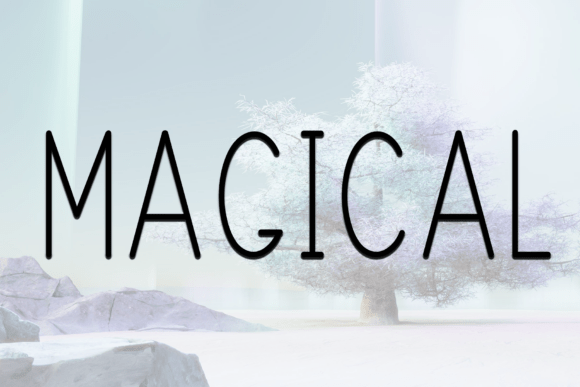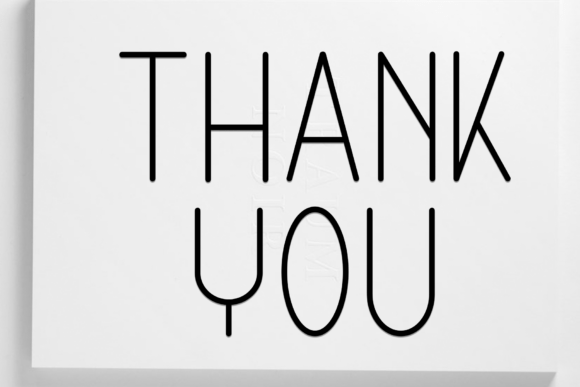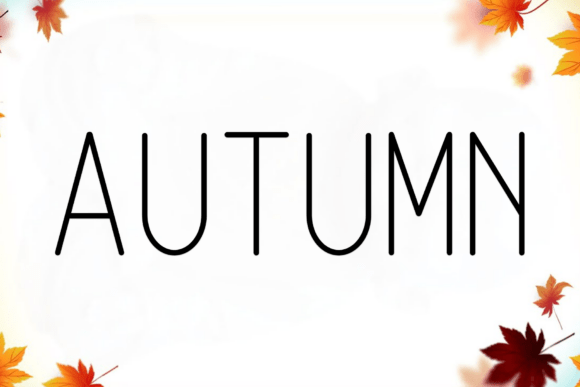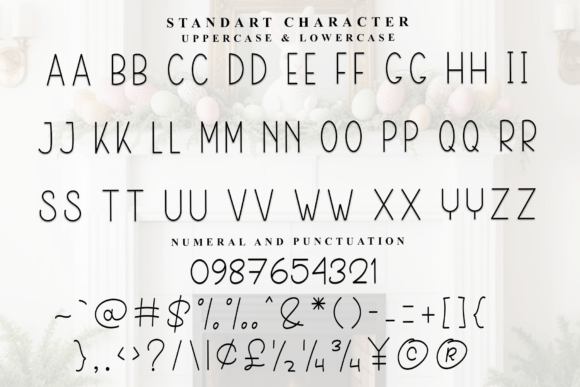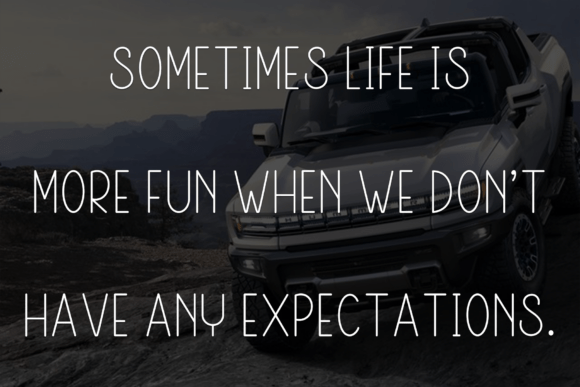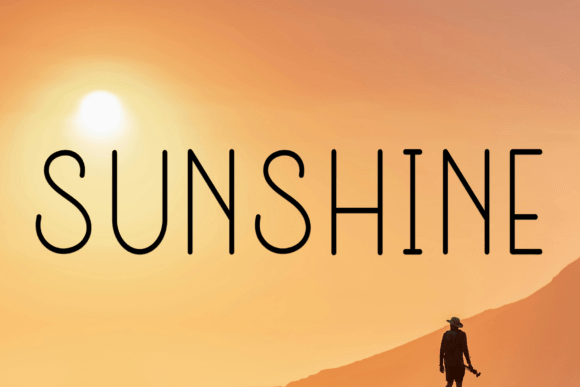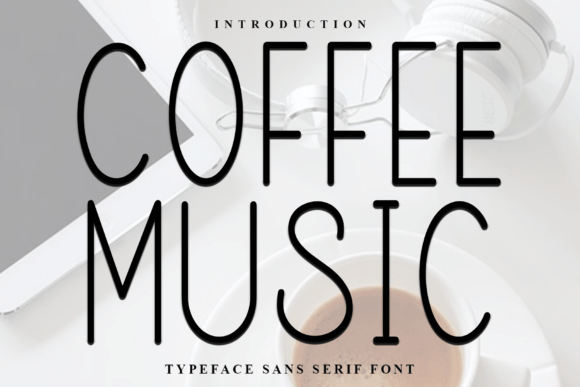
Coffee Music Font: The Perfect Holiday Typeface for Your Designs
Are you looking for a festive and merry typeface to add a touch of magic to your holiday designs? Look no further than the Coffee Music Font! This enchanting font is specifically designed to capture the spirit of the holiday season, making it perfect for greeting cards, gift tags, and other holiday-themed projects.
A Festive and Whimsical Typeface
Coffee Music Font is a decorative typeface that exudes a cheerful and nostalgic ambiance. Its whimsical flair and decorative elements make it an ideal choice for designers and crafters who want to add a touch of enchantment to their words. Whether you’re creating holiday greeting cards, gift tags, or social media posts, this font is sure to bring a smile to your audience’s faces.
Perfect for Holiday Designs
Coffee Music Font is specifically designed for holiday-themed projects. Its festive and merry vibe makes it perfect for:
- Holiday greeting cards
- Gift tags and wrapping paper
- Holiday-themed party invitations
- Christmas markets and craft fairs
Why Choose Coffee Music Font?
So, why should you choose Coffee Music Font for your holiday designs? Here are just a few reasons:
- Unique and festive design: Coffee Music Font has a unique and festive design that’s sure to stand out from the crowd.
- Versatile: Coffee Music Font can be used for a variety of holiday-themed projects, from greeting cards to social media posts.
- Nostalgic ambiance: The font’s whimsical flair and decorative elements evoke a nostalgic ambiance that’s perfect for the holiday season.
Tips for Using Coffee Music Font
Here are a few tips for using Coffee Music Font in your designs:
- Pair with a simple background: Coffee Music Font is a decorative typeface, so it’s best to pair it with a simple background that won’t compete with the font.
- Use for headlines and titles: The font’s whimsical flair and decorative elements make it perfect for headlines and titles.
- Experiment with colors: Coffee Music Font looks great in a variety of colors, so don’t be afraid to experiment and find the perfect hue for your design.